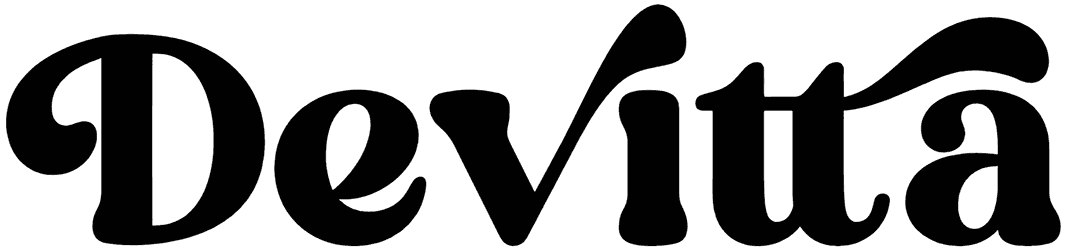
Devitta Font
Expecting to give off an authentic and established feel to your graphical design, never undervalue this proficient serif font. Devitta, with two different versions in stock, aims to bring a satisfactory outcome to your writing background with its sophisticated, edgy end design on letterforms.
This honorable ligature font is feasible to draw in developing any promotional ad, magazine, posters, book covers, and other printed designs as an incredible possibility.